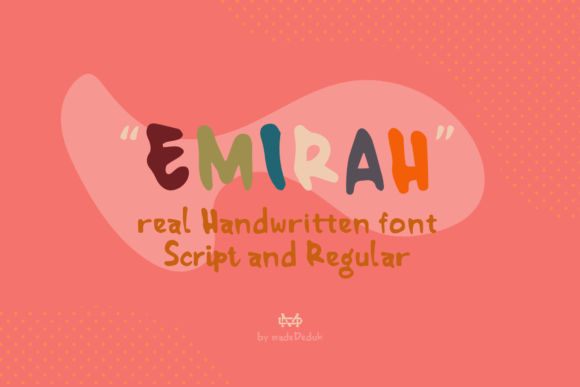
Journey into the enchanting world of Emirah, a captivating script font family that exudes charm and playfulness. Crafted with meticulous care by madeDeduk, this font is not just a collection of letters; it's an artistic expression that ignites creativity and sets your designs apart.
Unleash the whimsical nature of Emirah on your book titles, adding a touch of magic and imagination to every page. Let your children's projects bloom with delightful handwritten words that bring their stories to life. Transform school materials into engaging learning adventures, where each letter is an invitation to explore knowledge.
Harness the power of Emirah to create a brand identity that resonates with your audience. Let your product packaging speak volumes with elegant, eye-catching typography. Extend the invitation of joy and celebration with Emirah-adorned invitations, carrying the promise of an unforgettable occasion.
Adorn quotes with the beauty of Emirah, allowing their messages to dance off the page with an artistic flair. Create T-shirts that make a statement, with words that carry a message of positivity and inspiration. Design labels that exude sophistication and elegance, elevating your products to a new level of allure.
Craft posters that command attention, their messages amplified by the captivating curves and flourishes of Emirah. Let your logos blossom into visual masterpieces, leaving an unforgettable impression in the minds of your clients. With Emirah, the possibilities are boundless, limited only by your imagination.
Unlock the endless creative potential of Emirah today and embark on a journey of artistic expression. Let your designs dance with whimsy, delight, and captivating charm. Discover the power of this enchanting script font and transform your projects into unforgettable works of art.